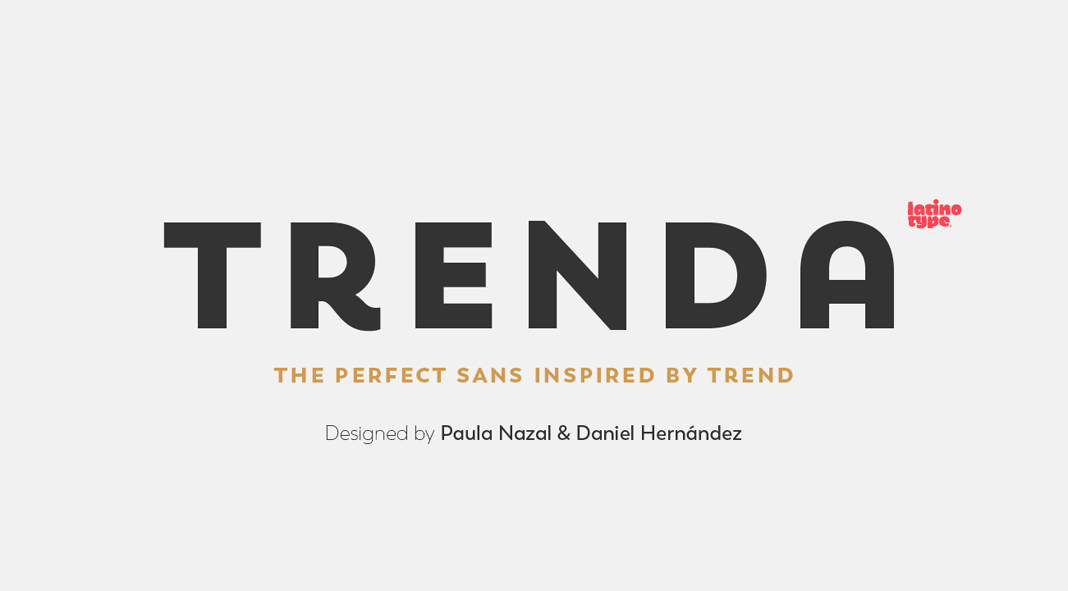
Discover the Trenda font family, a unique sans serif with a strong personality.
Latinotype’s Trenda font family was designed in 2016 by Daniel Hernández and Paula Nazal. Alfonso García and Rodrigo Fuenzalida have been responsible for additional reviews and corrections. The modern and unique nature of this geometric sans serif is based on latest trends in type design. With some inspiration from Latinotype’s popular Trend font from 2013, the new Trenda family is a modern display typeface. Equipped with 8 weights plus matching Italic versions, you can use it for a variety of applications such as branding projects or packaging design. Please read more below or click on the following link to purchase the full family as introductory offer.
Trenda, a friendly and easy-to-use display typeface for multipurpose.
Trenda’s diverse weights range from a delicate Thin version to a massive Heavy style. Both variants are well suited for headlines while the middle weights work best with short and mid-length text sections. Equipped with small caps and diverse alternative letters, the family contains 634 characters and supports 206 languages. For additional information on all features, just follow the link below.